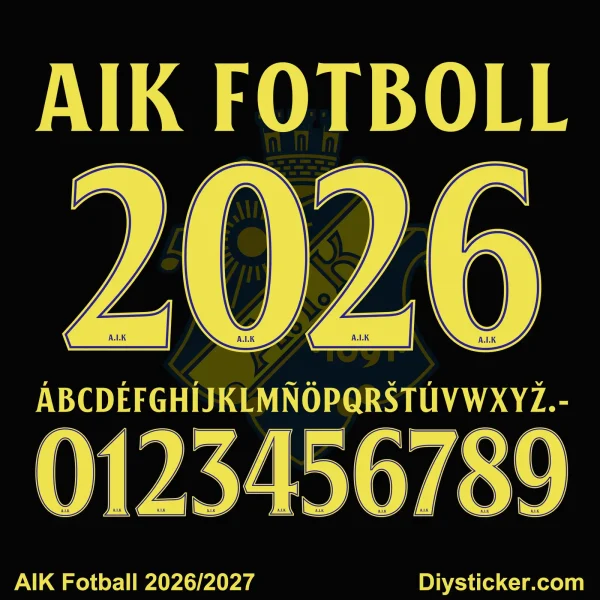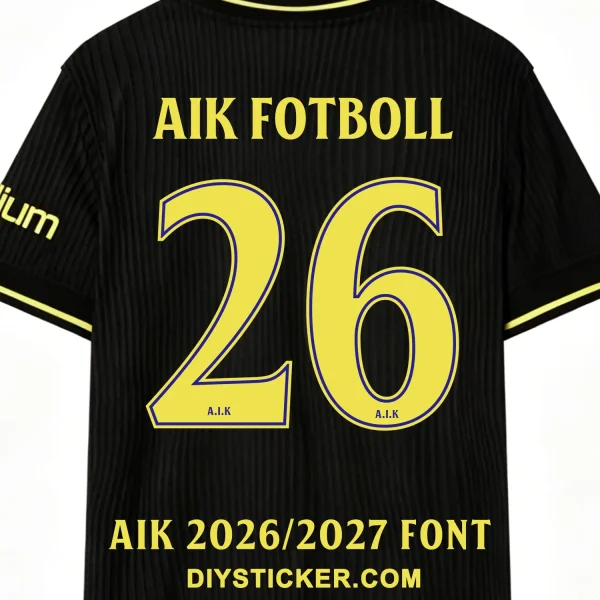
Replicate the regal, historic match-day look of Gnagarna! This premium digital file pack features the majestic AIK Fotboll 2026-2027 Font and Numbers rendered in the club’s iconic yellow and blue trim layout. It is expertly crafted with classic curved serifs, distinct dual-line border outlines, and “A.I.K.” text branding nested precisely at the base of each character.
Complete uppercase alphabet, squad numbers, and integrated team text details.
Elevate Your Kit Customization with the AIK Fotboll 2026-2027 Font
Upgrade your custom apparel catalog with the absolute latest look from the Friends Arena! This digital typography product delivers the full AIK Fotboll 2026-2027 font style designed for the upcoming Allsvenskan and European campaigns. Striking a beautiful balance between traditional Scandinavian athletic heritage and regal typography, this font face features timeless, elongated serif proportions accented by a crisp blue accent border outline and the official “A.I.K.” club initials crisping up the bottom of each numeric glyph.
Comprehensive Character Mapping
A-Z Uppercase Alphabet: High-contrast, traditional serif letterforms built for bold pitch legibility and elegant tracking on official jersey nameplates.
0-9 Outlined Numbers: Beautifully rounded numeric designs showcasing clean solid yellow bodies, a distinct blue boundary outline, and integrated “A.I.K.” text details.
Special Accents & Diacritics: Complete set of punctuation marks and international accents (
Á,É,Ñ,Ö,Ř,Š,Ú,Ž, etc.) to accurately recreate names for Swedish and international star players.